Awasome Aodbe Fonts Ideas
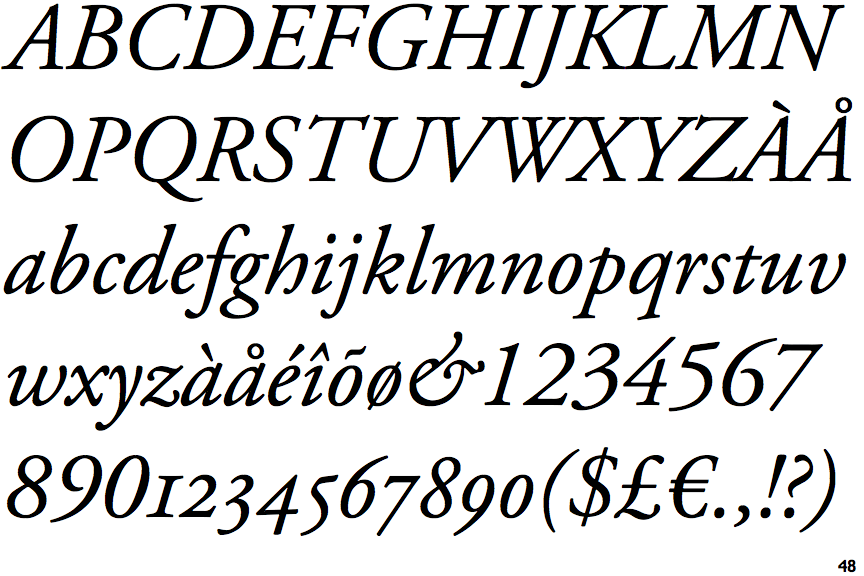
Essonnes — The Best Sophisticated Adobe Font.
How to add fonts to your design. Marydale — a natural handwritten typeface. Blambot — a comic book style typeface.
Having Spent Quite Some Time Myself On Adobe Fonts, I Decided To Make A List Of My Top 10 Free Adobe Fonts For Sports Designers, With The Caveat That These Are Free* To Use.
He designed it as the latin component of ten mincho, a japanese typeface by adobe’s chief. To do it, go to “assets” > “fonts”. With pragmatapro, fabrizio wanted to design the ultimate font for coding, math, and engineering, optimized for screen rendering.